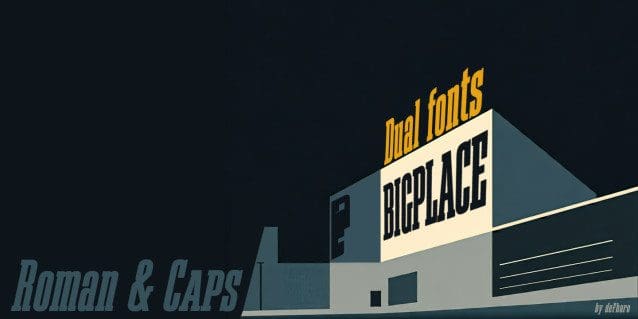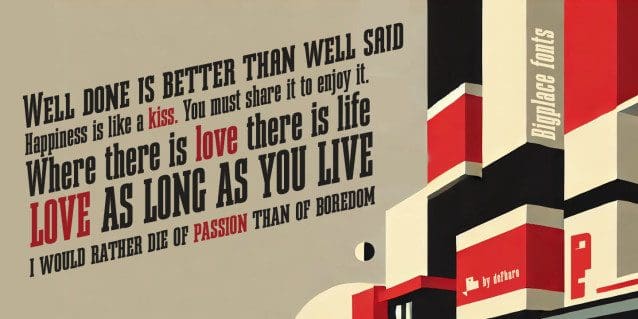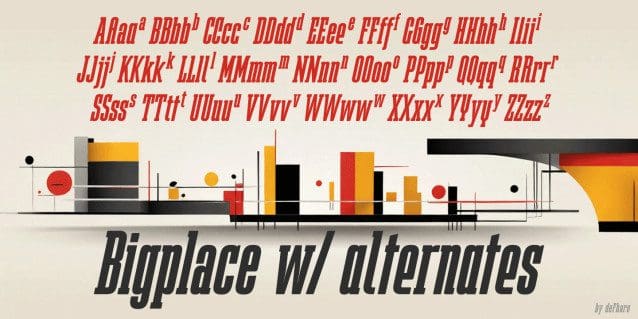
Bigplace Font
Bigplace Font, a typeface with an ultra-condensed structure and a bold Extra Bold style! Designed to stand out, Bigplace combines the strength and presence of a Slab Serif with the energy of its oblique stroke, giving it an unmistakable dynamism.
Inspired by two of the most influential graphic movements of the 20th century, the Bauhaus and Soviet Constructivism, Bigplace draws from the best of graphic design, posters, and editorial design from these avant-gardes, merging their functional character with a touch of contemporary boldness.